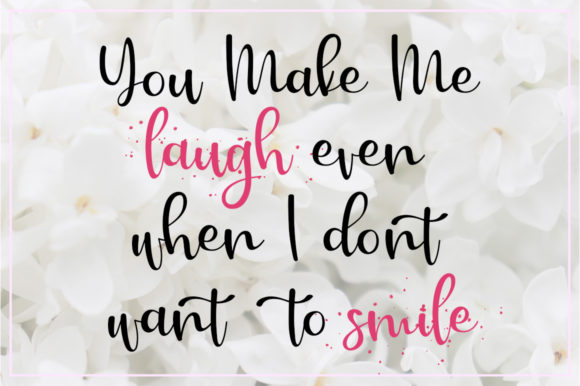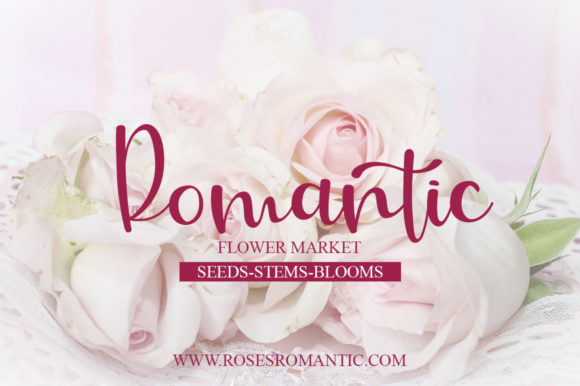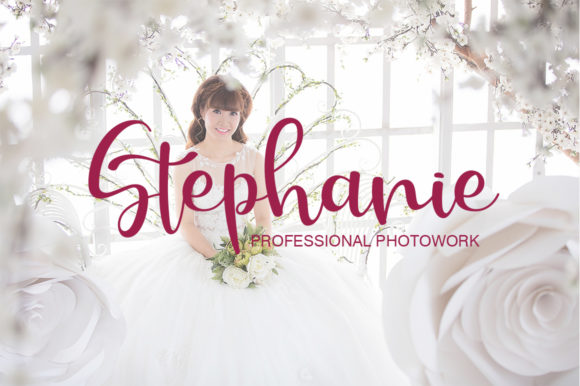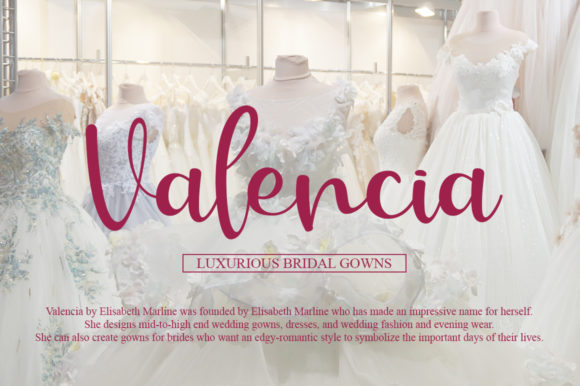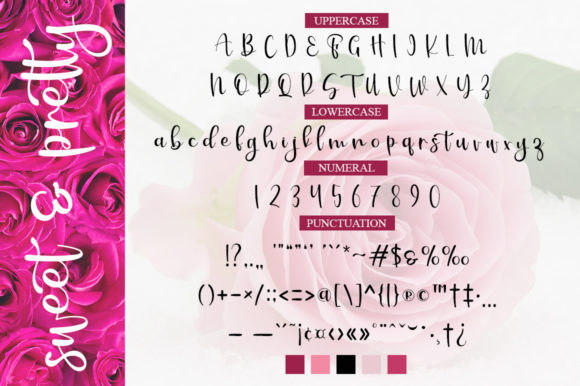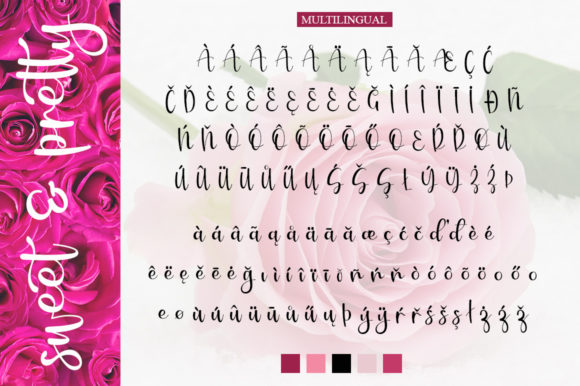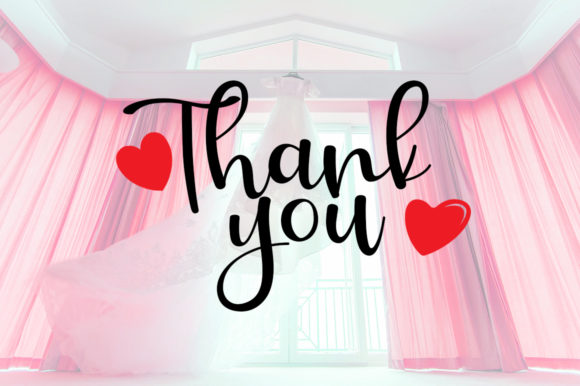
Sweet & Pretty Font
About Sweet & Pretty Font
Sweet & Pretty, is, as the name suggests, an incredibly lovely and charming script. Get inspired by its bold feel!